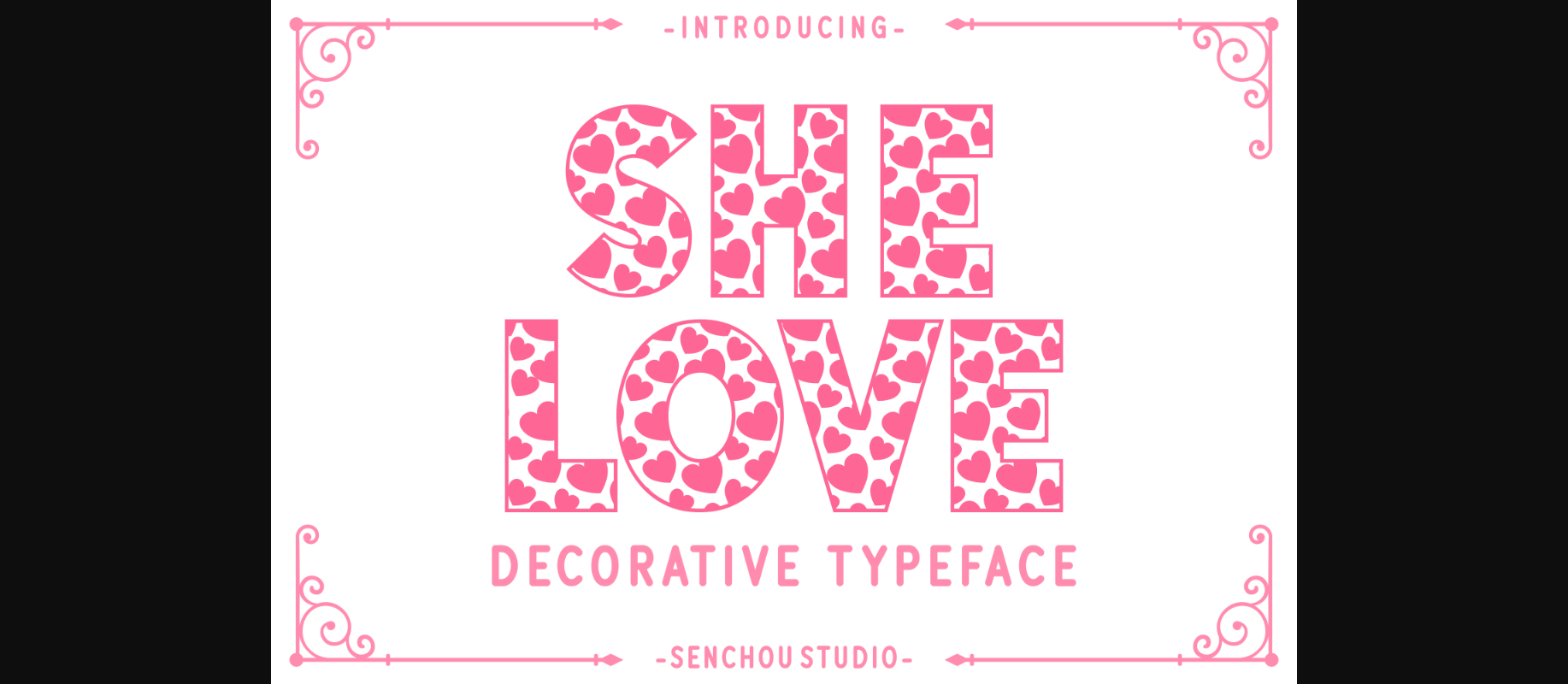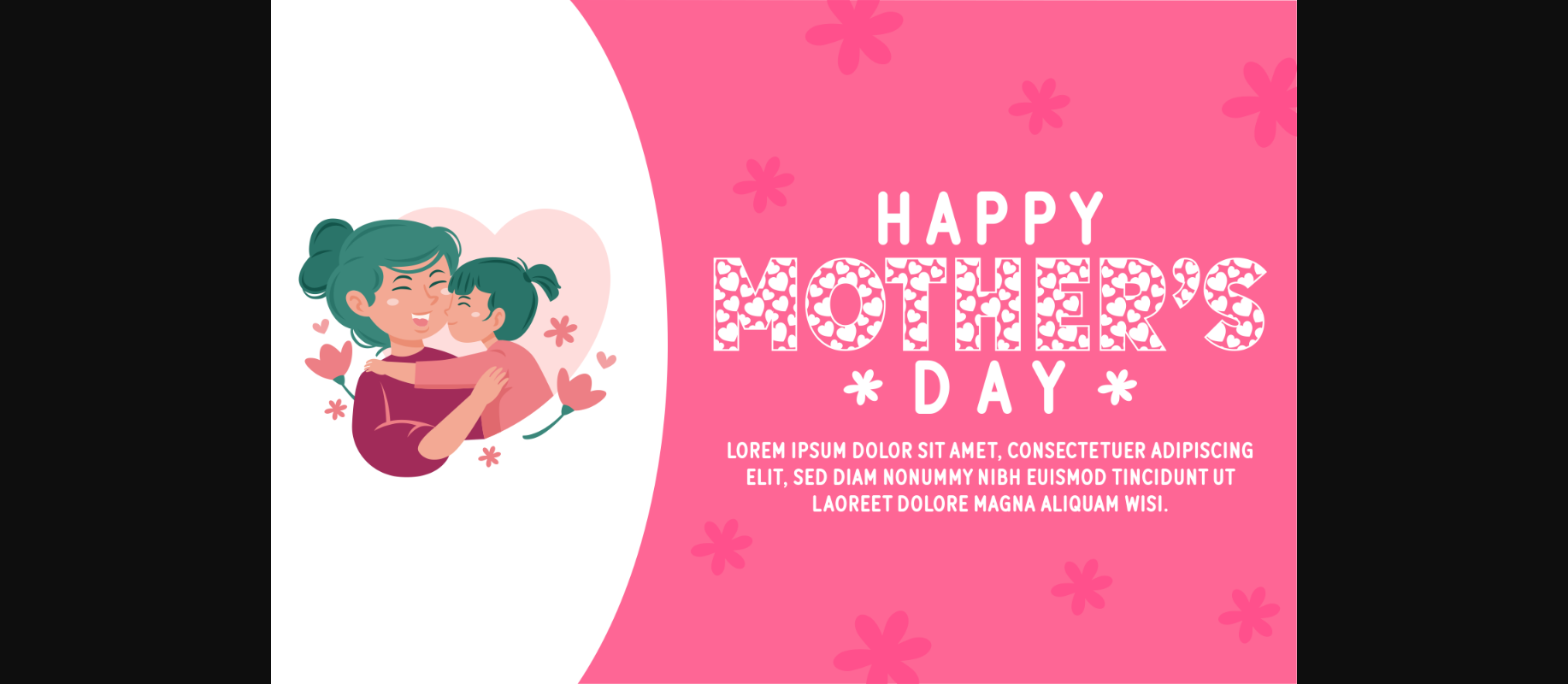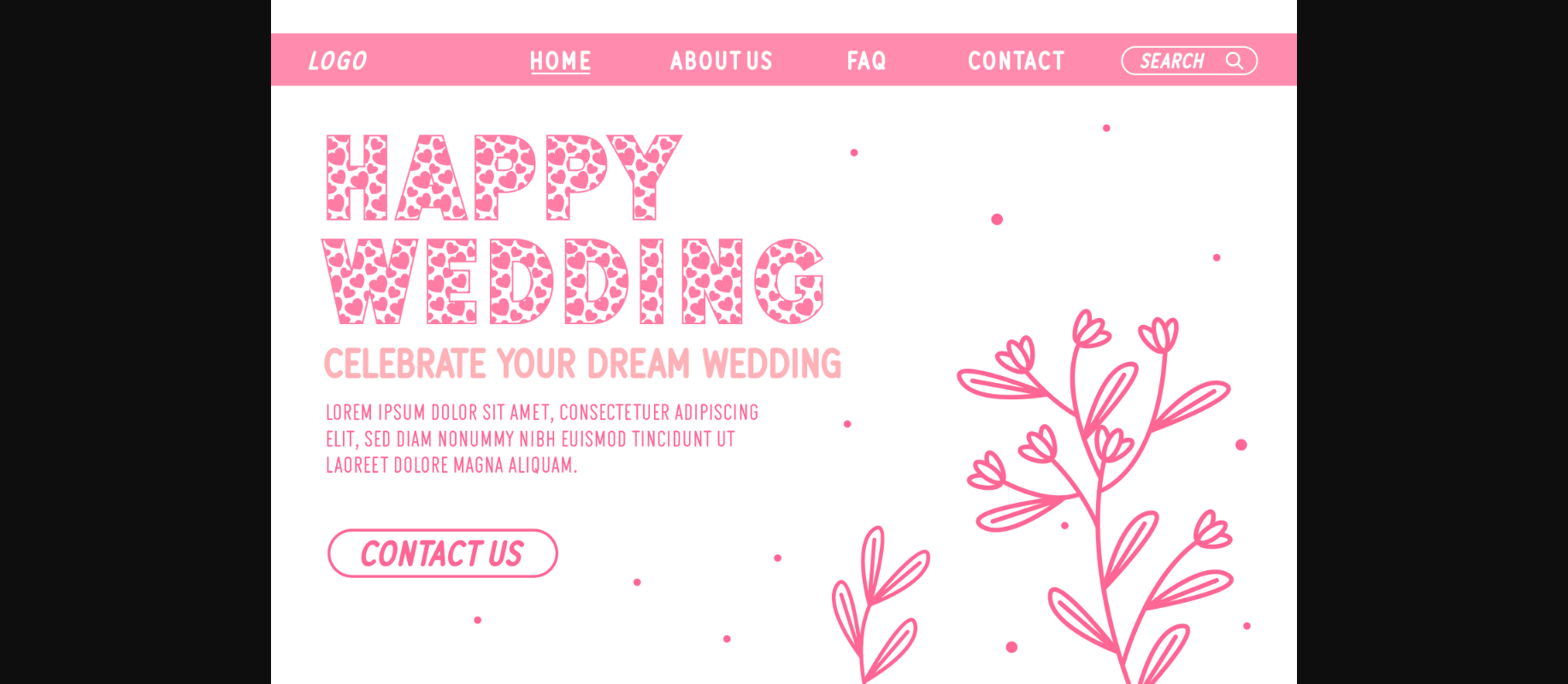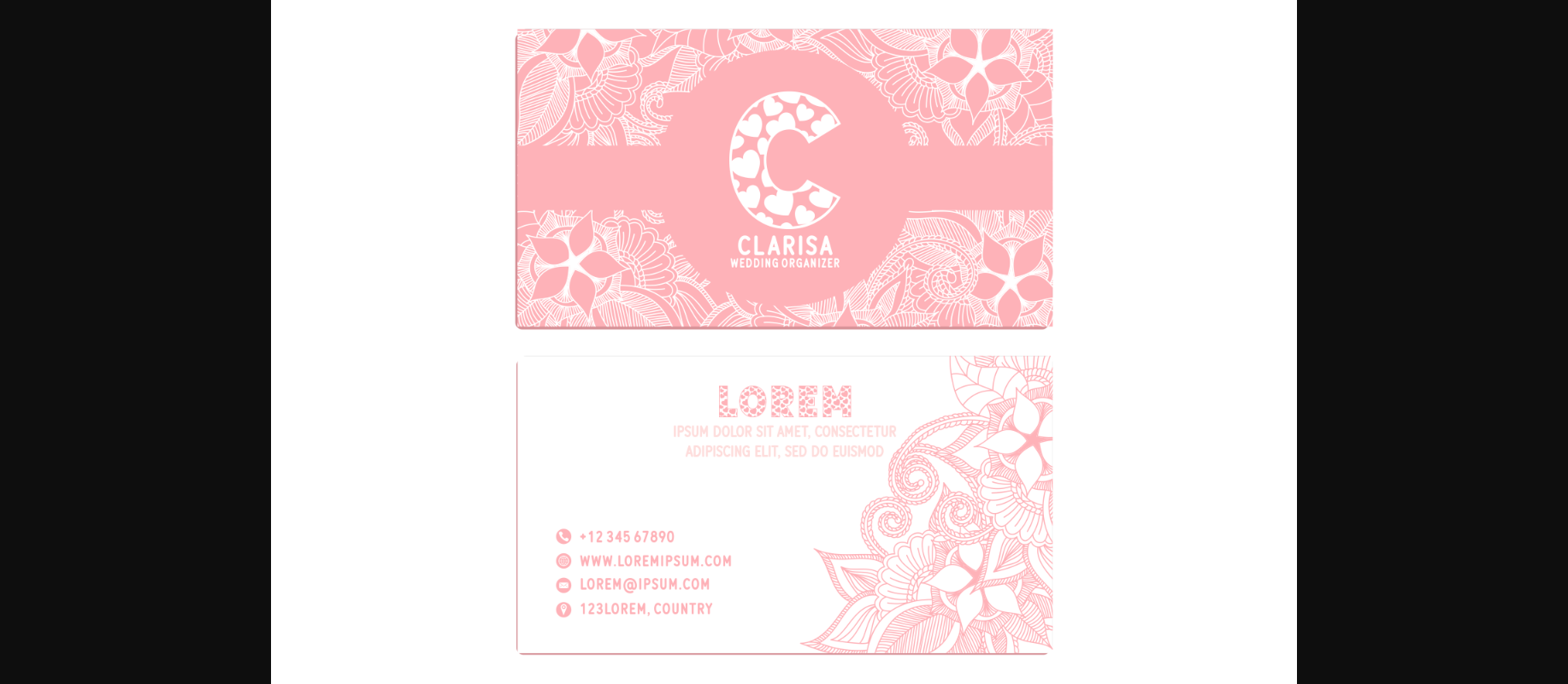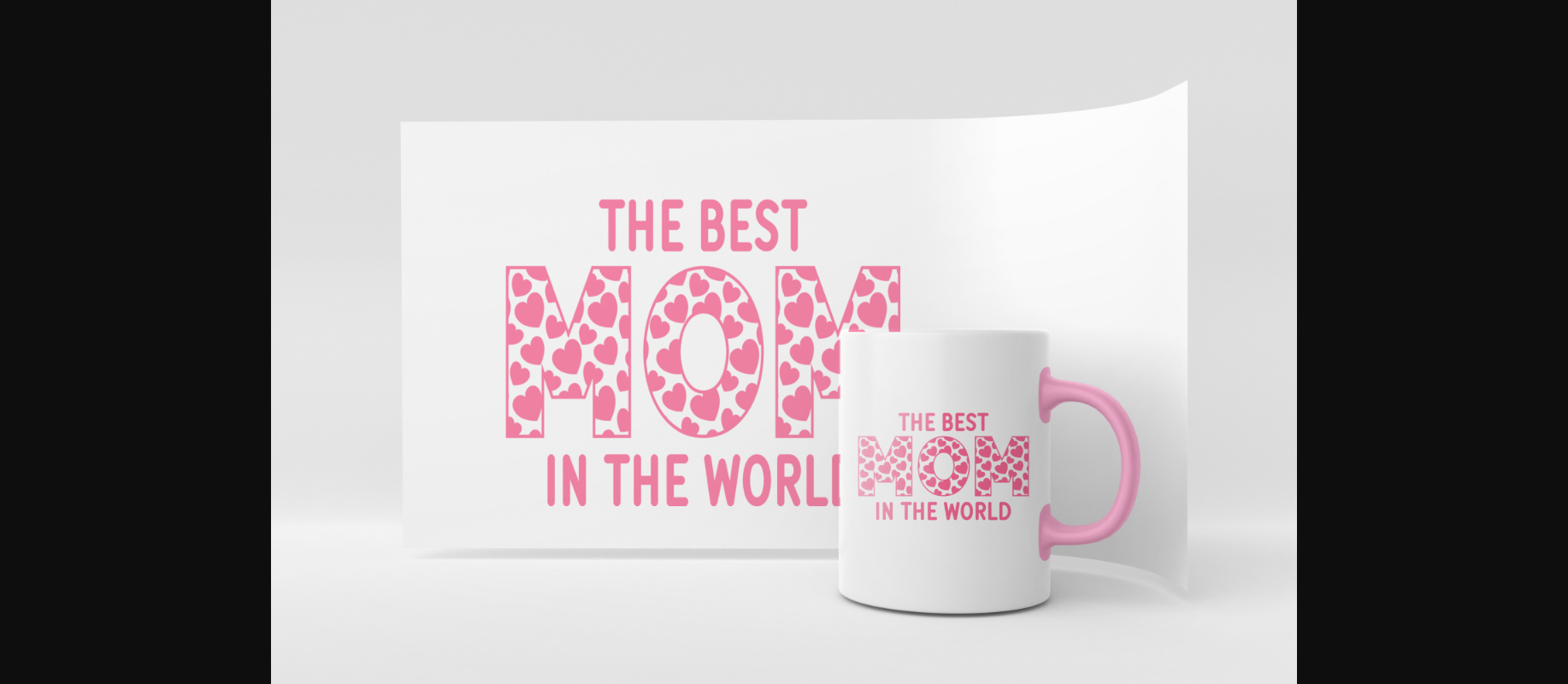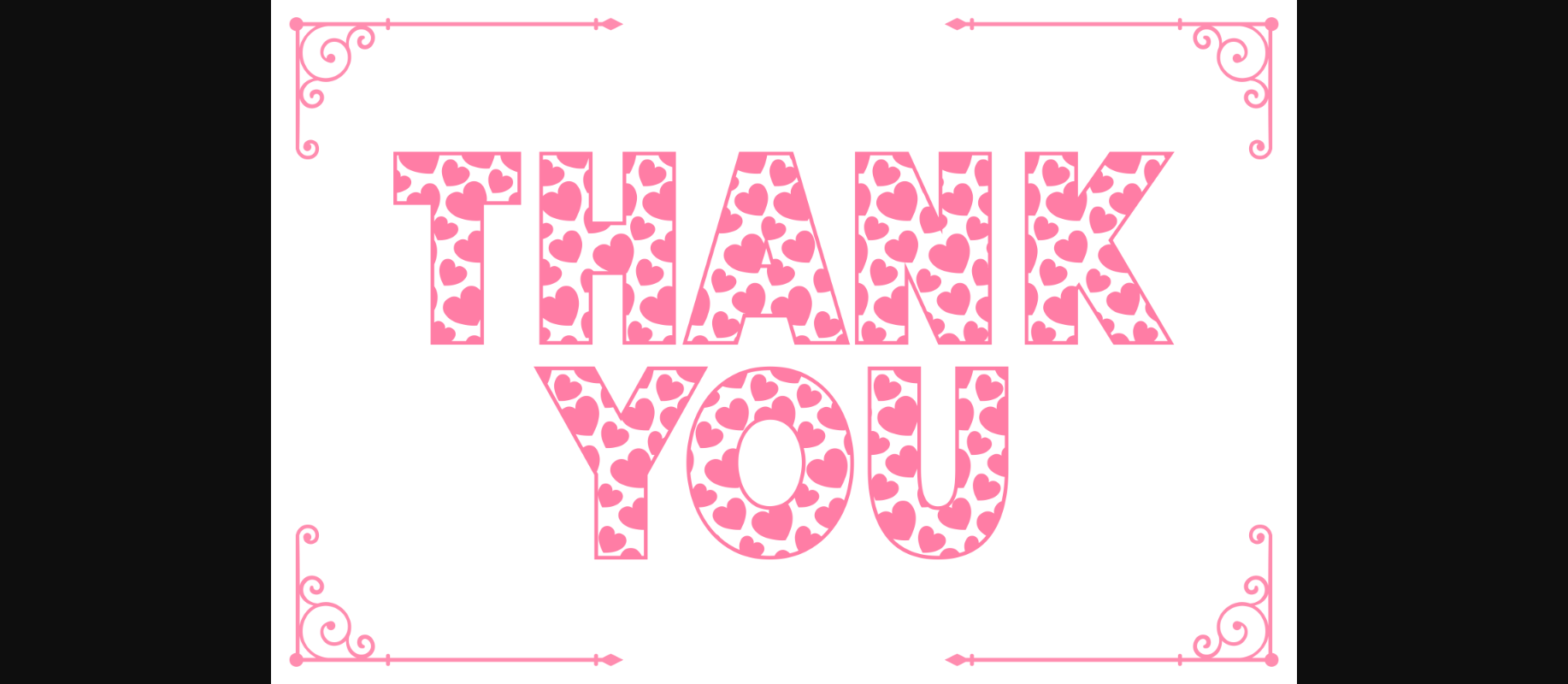
HomeDecorative FontsShe Love Font Decorative Fonts She Love Font FacebookXPinterestWhatsApp 1 of 8 ... She Love Font Poster 2... She Love Font Poster 3... She Love Font Poster 4... She Love Font Poster 5... She Love Font Poster 6... She Love Font Poster 7... She Love Font Poster 8... About She Love Font She Love is a romantic decorative font. It looks cute and fun on a variety of design ideas and it will most certainly elevate each of your creations. DOWNLOAD NOW People also explored Angela Duo Font Lestpoem Font Fagheto Font Anthony Hunter Font Cold Valentine Font Obrigado Hungry Font Billion Time Font Gabjest Font 361 0 TagsShe Love Font Previous articleLove Monogram FontNext articleDash Dotted Font LEAVE A REPLY Cancel reply Comment: Please enter your comment! Name:* Please enter your name here Email:* You have entered an incorrect email address! Please enter your email address here Website: Save my name, email, and website in this browser for the next time I comment. Personal Use Free Beautiful Personal Use Free Read more about this font Andolas Personal Use Free Read more about this font Mika Personal Use Free Read more about this font Rennoya Personal Use Free Read more about this font BLOG The 10 Best Handwriting Fonts to Add Personality to Your Designs 10 of the Best Handwriting Fonts for Adding Personality to Your Designs There will undoubtedly be no other better choice than handwriting fonts to give... Top 7 Google Fonts Alternatives for Faster and Privacy-Friendly Web Design (2025) Best Fonts for YouTube Videos: Make Your Thumbnails Stand Out 5 Fonts That Will Dominate Design Trends in 2026